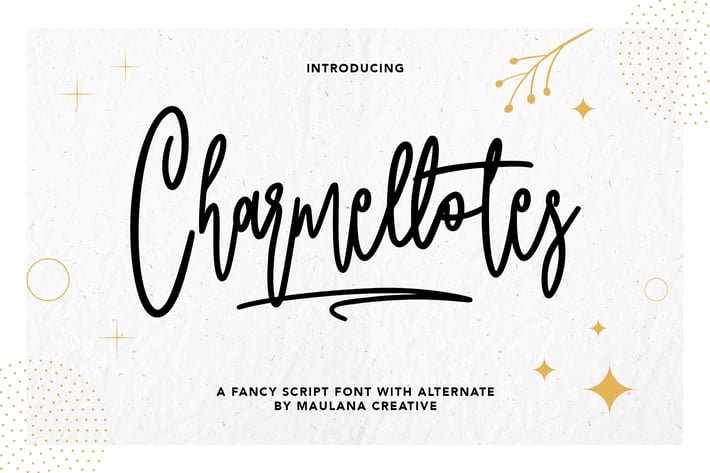
Charmellotes Fancy Script Font With Alternate
Charmellotes Fancy Script Font is beautiful script made by love. Charmellotes Script with natural handwriting touch is suitable for you who needs a typeface for Headline, Apparel, Invitation, Branding, Wedding, Logo Design, Lettering, Logotype, Clothing, Poster, Magazine and other design project.
Each Font Has:
- Beautiful Swash
- Awesome Alternate
- Stylish Handwritten Style